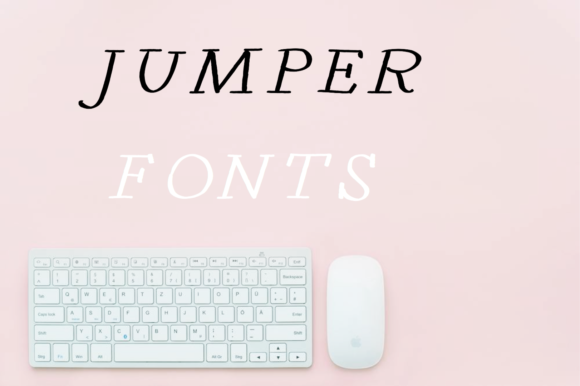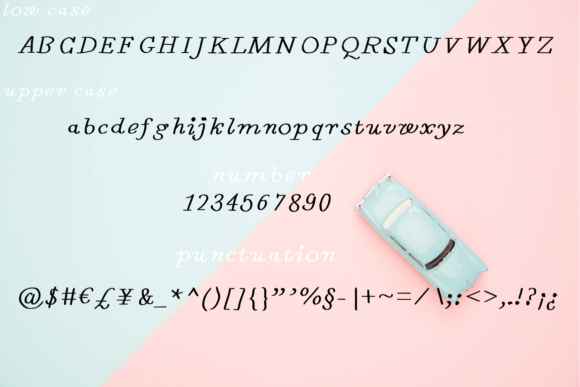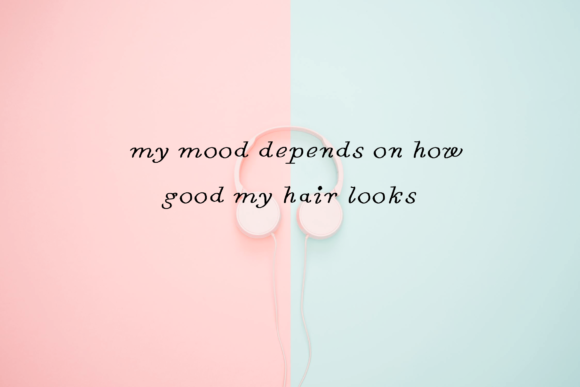
About Jumper Font
Jumper is a delightful and friendly handwritten font that exudes a sense of warmth and approachability. Its natural and unique style makes it a versatile choice for a wide range of design projects. Here are some creative ideas on how to use Jumper font to add a sweet touch to your designs:
1. Logo and Branding: Create a charming and welcoming logo for your business or brand using Jumper font. Its friendly appearance will make your brand feel approachable and inviting.
2. Greeting Cards: Design heartwarming greeting cards with Jumper font for various occasions like birthdays, thank you notes, or just to spread some love and cheer.
3. Social Media Graphics: Use Jumper font to craft eye-catching and engaging posts for your social media platforms. It’s perfect for sharing inspiring quotes, announcements, and holiday-themed graphics.
4. Personal Stationery: Customize your personal stationery, including letterheads and envelopes, with Jumper font to add a personalized and delightful touch.
5. Craft Projects: Incorporate Jumper font into your DIY craft projects, such as making handmade gift tags, scrapbooking, or creating personalized labels.
6. Blog Graphics: Enhance your blog’s visual appeal with Jumper font in your blog headers, featured images, and blog post graphics.
7. Party Invitations: Design playful and inviting party invitations using Jumper font for birthday parties, baby showers, or any other special occasions.
8. Book Covers: Create whimsical and charming book covers using Jumper font for children’s books, romantic novels, or lighthearted genres.
9. Quote Prints: Design inspirational quote prints with Jumper font to decorate your home or offer as thoughtful gifts to loved ones.
10. T-Shirt Designs: Use Jumper font to add a touch of sweetness to your t-shirt designs, making them stand out and appeal to a wide audience.
11. Art Prints: Create delightful art prints featuring Jumper font with illustrations or motivational messages for wall decor.
12. Menu Cards: Design playful and attractive menu cards for cafes, restaurants, or special events using Jumper font to entice customers.
The versatility of Jumper font allows you to unleash your imagination and create endearing designs for various projects. Its sweet and friendly demeanor will resonate with a broad audience and add a touch of warmth and charm to your creations. So, whether it’s for personal or professional use, let Jumper font bring a smile to your designs and make your projects stand out!